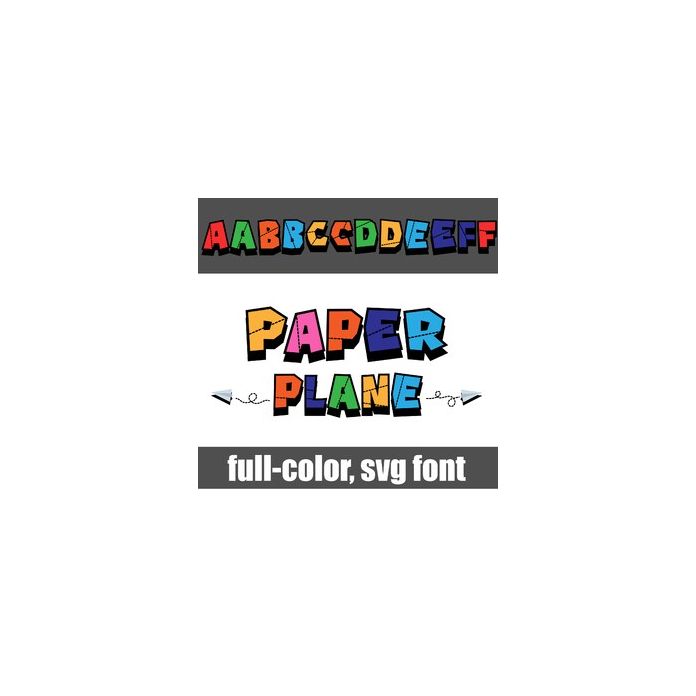
This full-color font features blocky, sans serif lettering with black shadows and paper airplanes throughout. There is an alt case w/ additional colors you can access through your system or Silhouette's glyph map.